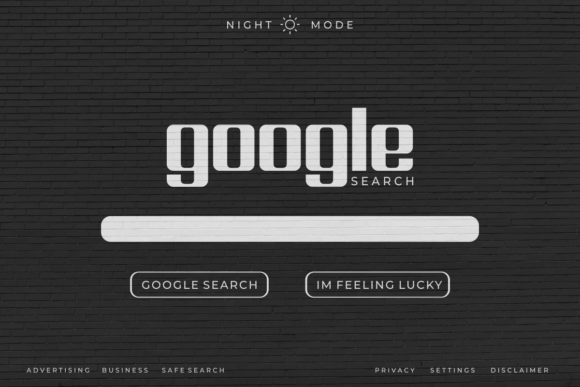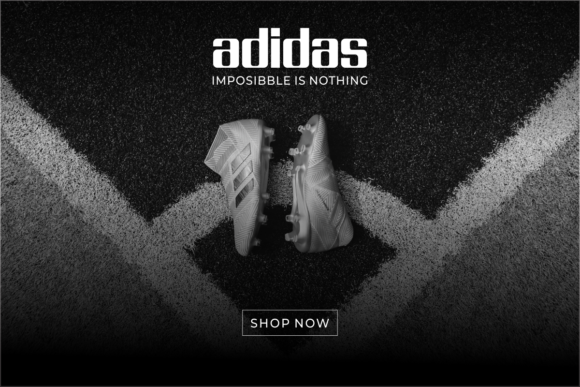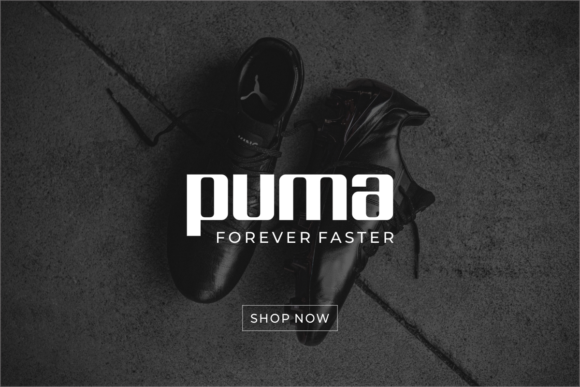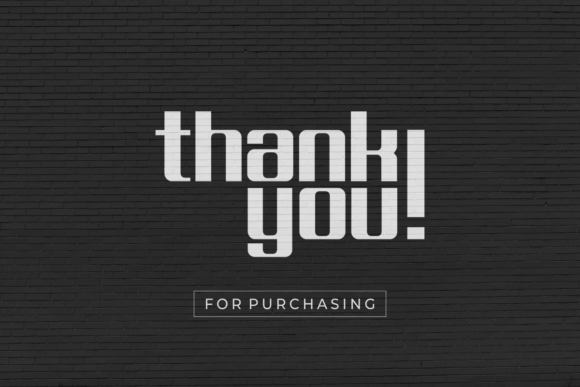
Introduction to Exellent Font
Have you ever stared at a blank page, trying to come up with the perfect design for your creative project, only to be stuck on what font to use? It’s a common dilemma many designers face. But what if you could have a font that screams “attention-grabbing” and makes your design stand out from the crowd?
Enter the Exellent Font, a striking sans serif that exudes a bold, serious, sporty, and masculine vibe. Its name says it all – it’s truly excellent for headlines, logos, landing pages, advertising, and displays. Whether you’re working on a high-stakes design project or just need a reliable design resource, the Exellent Font is sure to deliver.
Key Features of Exellent Font
- High-quality design resource ideal for creative projects, with a wide range of styles and fonts to suit various needs.
- Exellent Font is designed with precision and attention to detail, ensuring a professional and polished look for any creative project.
- Easy to customize and modify, making it an excellent choice for designers and artists working on complex design projects.
Honest Review: Exellent Font
I recently stumbled upon Exellent Font while working on a design project and I must say it’s a fantastic addition to any designer’s toolkit. The font offers a unique aesthetic that can elevate any creative project.
- ✨ High-quality design: Exellent Font boasts crisp lines and a smooth texture that makes it perfect for use on a transparent background.
- ✨ Versatility: The font comes in a range of weights and styles, making it easy to adapt to different design needs.
- ⚠️ Limited language support: While Exellent Font is a great choice for English language projects, it may not be suitable for designs that require support for other languages.
- ⚠️ Not ideal for body text: While Exellent Font is great for headings and titles, it may not be the best choice for body text due to its unique aesthetic.
Overall, I’m impressed with Exellent Font and would definitely recommend it to designers working on creative projects that require a high-quality, unique font. Just be aware of its limitations and use it judiciously.
Tips for Getting the Most Out of Exellent Font
For optimal results, use Exellent Font in conjunction with other high-quality design resources. Experiment with different font sizes, colors, and styles to create a unique and visually appealing design. Take advantage of the transparent background feature to seamlessly integrate Exellent Font with other design elements.
Exellent Font is ideal for a variety of creative projects, including logos, brochures, and business cards. Its high-quality design and transparent background feature make it a versatile design resource for any project.